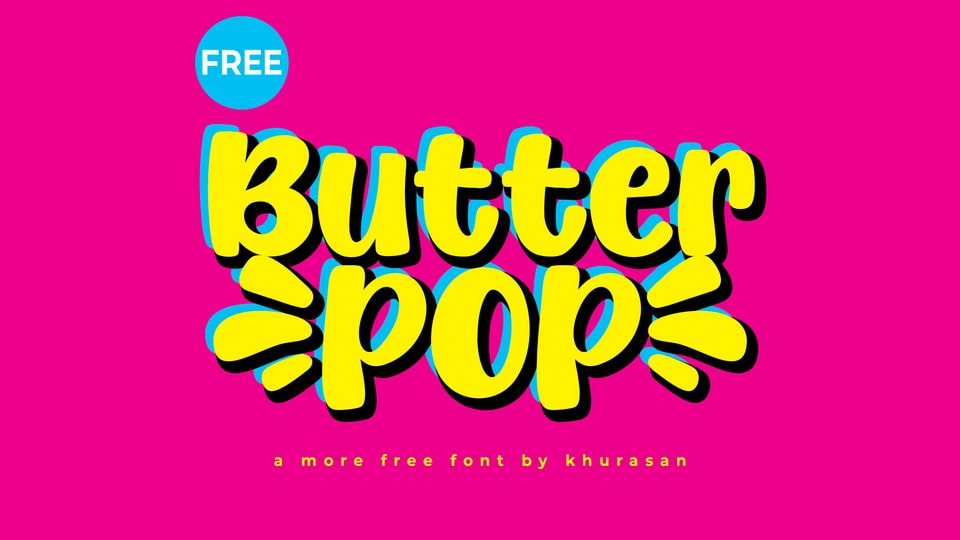
Download Butter Pop font, a bold, bubbly display typeface bursting with energy and color. Its chunky letterforms, rounded corners, and playful proportions give it a loud, cheerful personality.